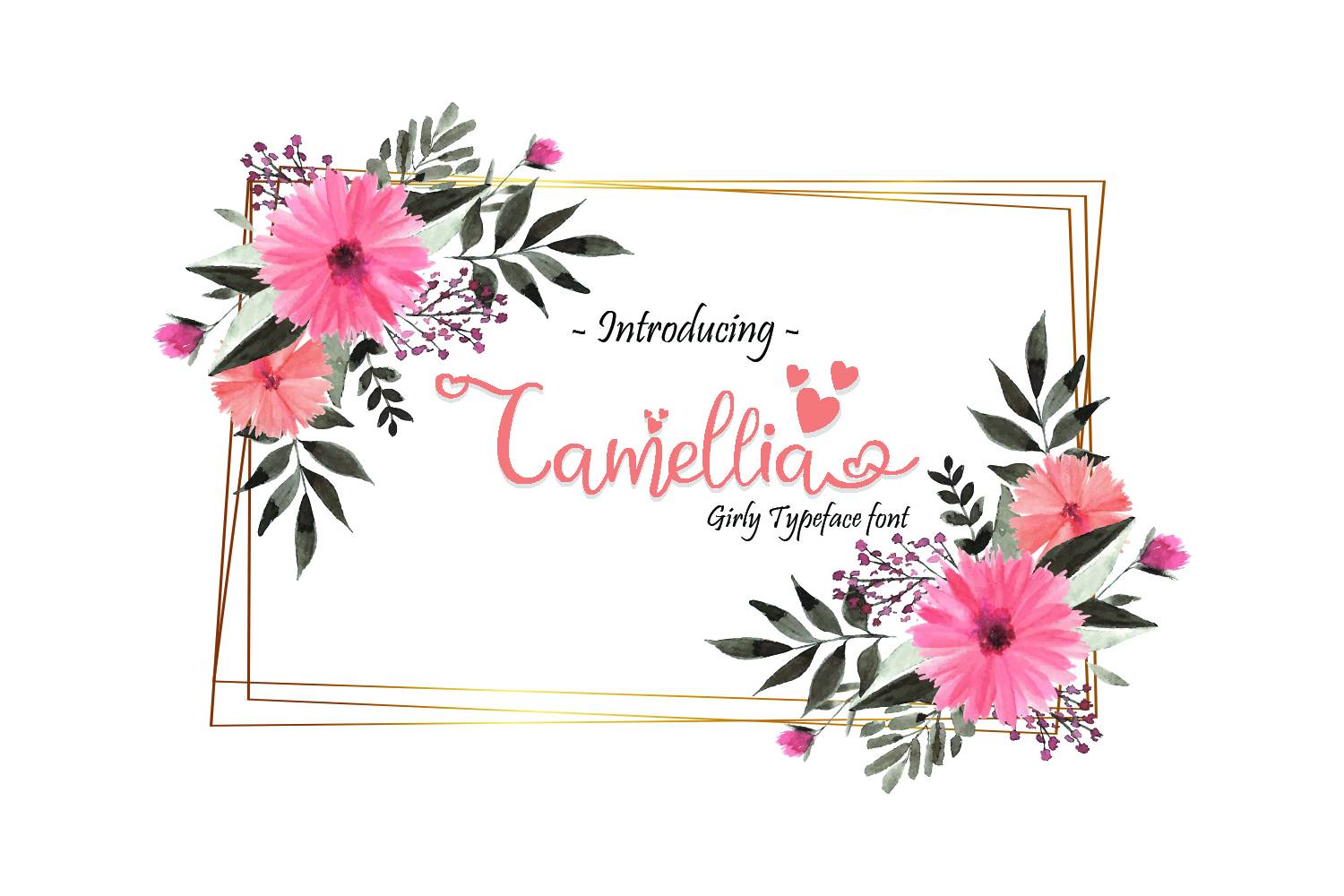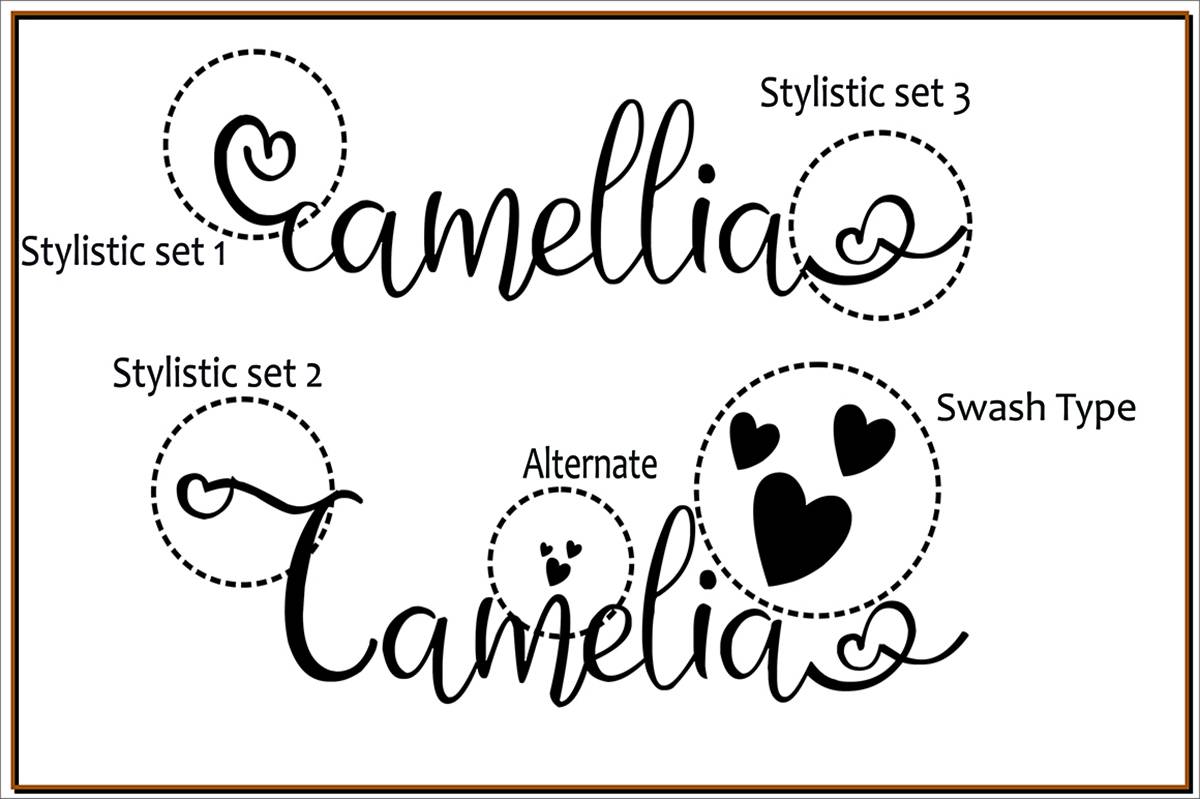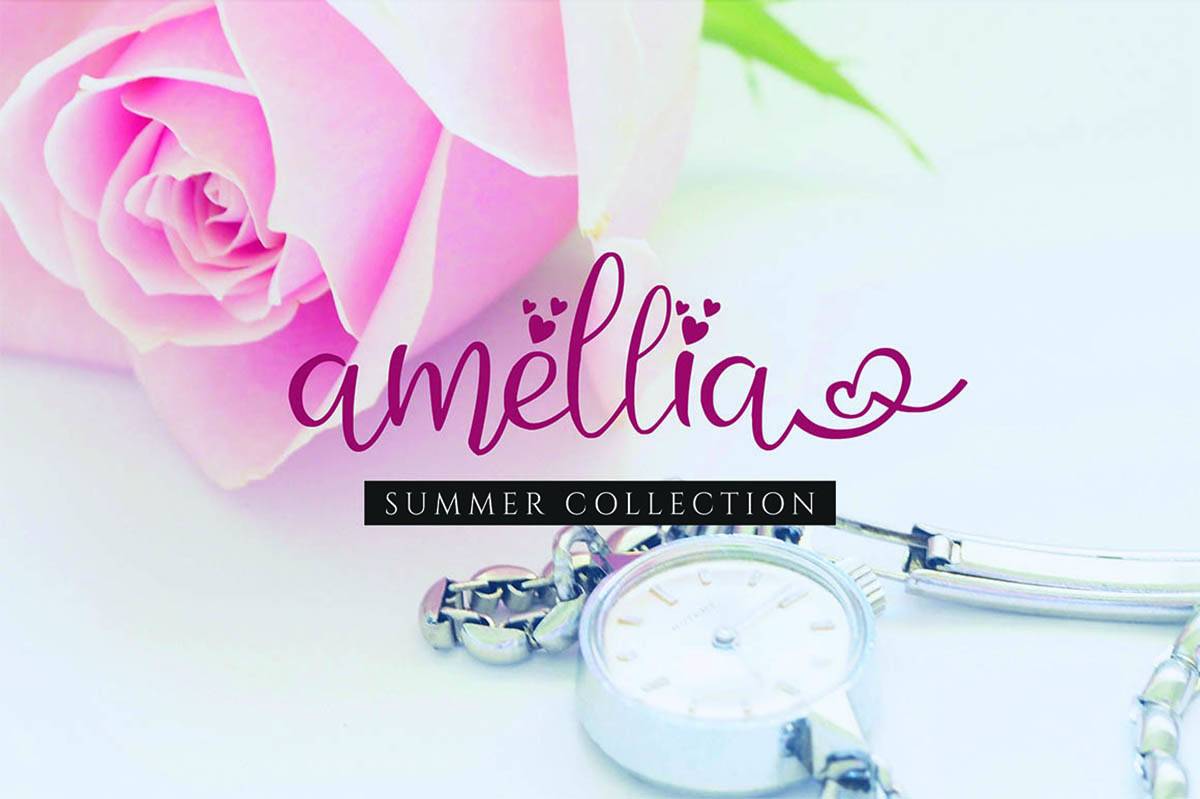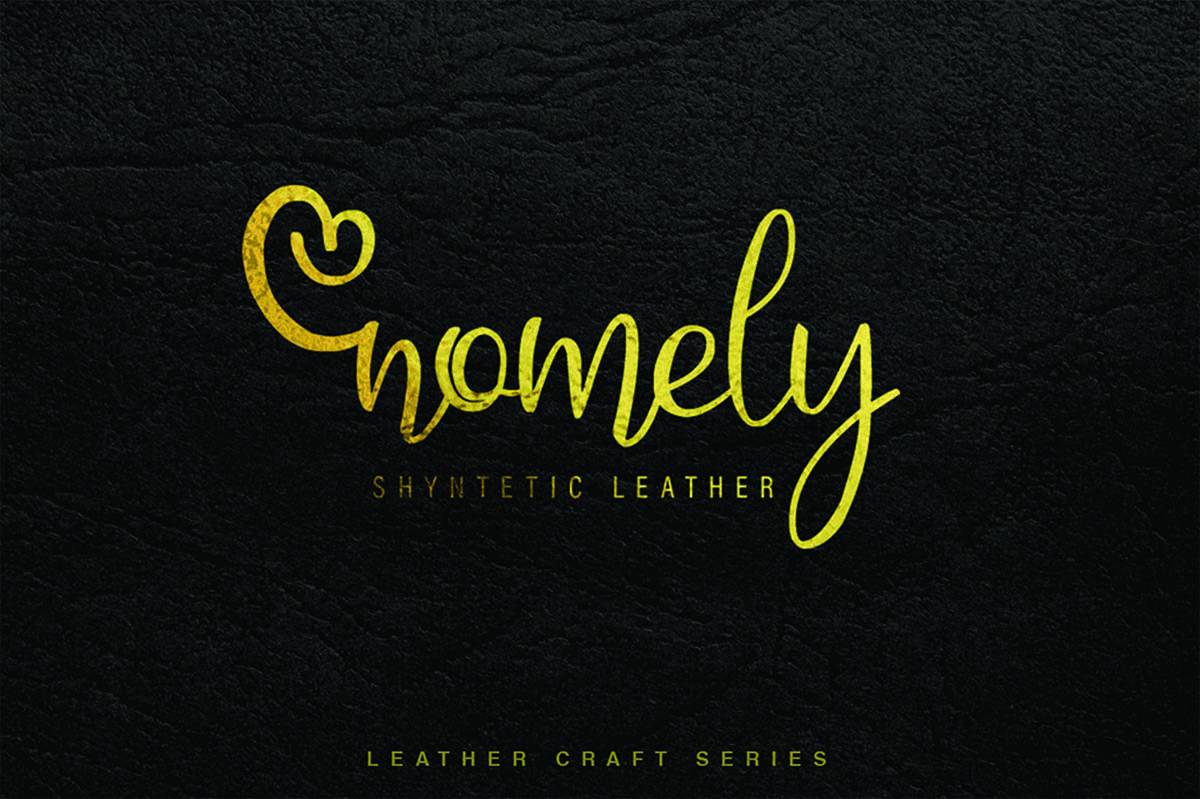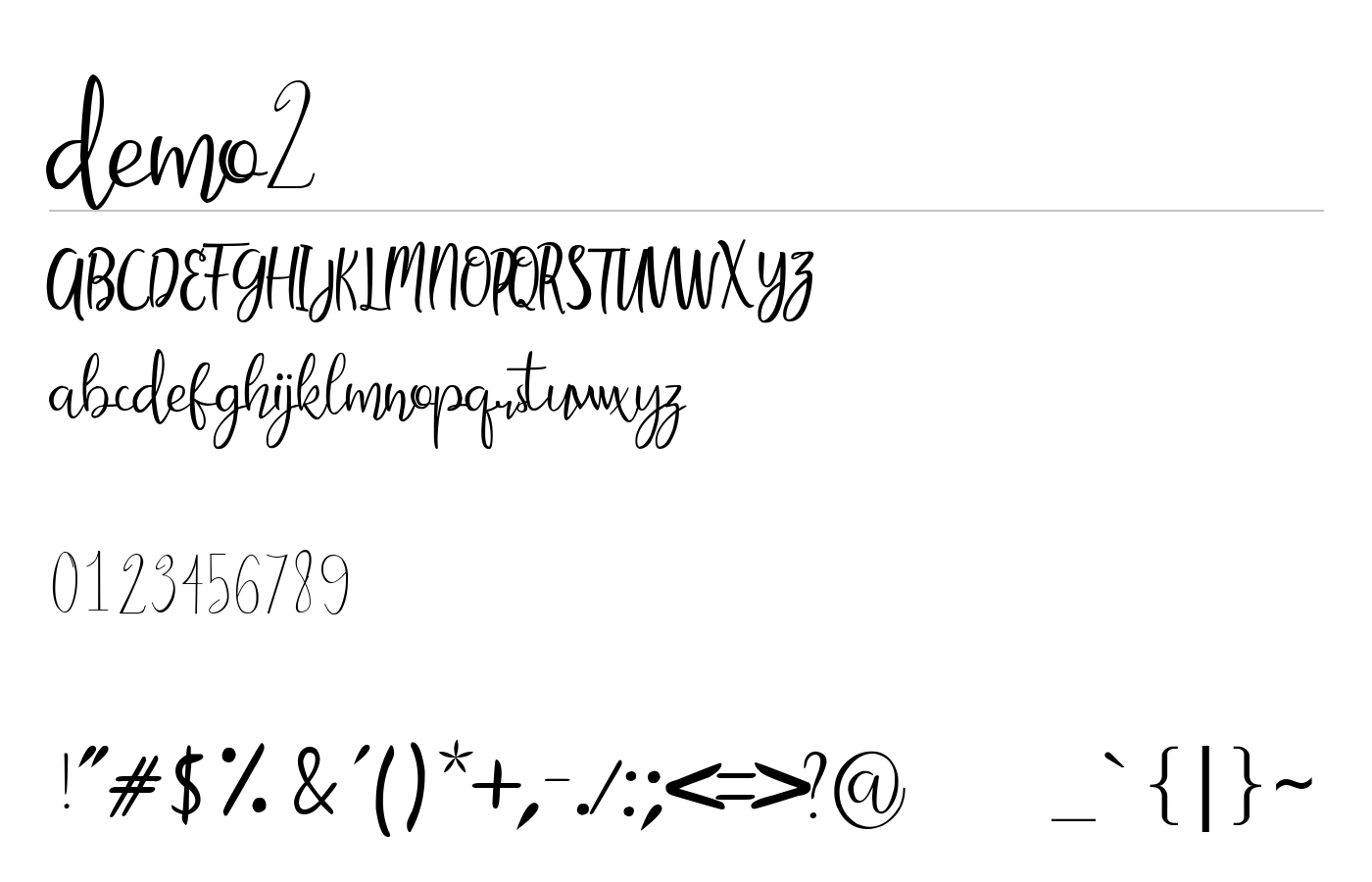
Camellia Font is a delicate, handwritten script with a slender, airy appearance that conveys elegance and charm. Its tall, narrow letterforms and subtle variations in stroke thickness lend it a graceful, personal touch, making it perfect for invitations, branding, and creative projects that seek a refined yet approachable style. This font’s light and flowing design works beautifully where a sophisticated and friendly feel is desired.
Camellia Font
About Camellia Font
| Font family | Camellia Font |